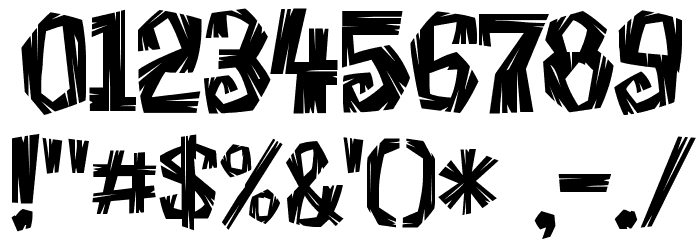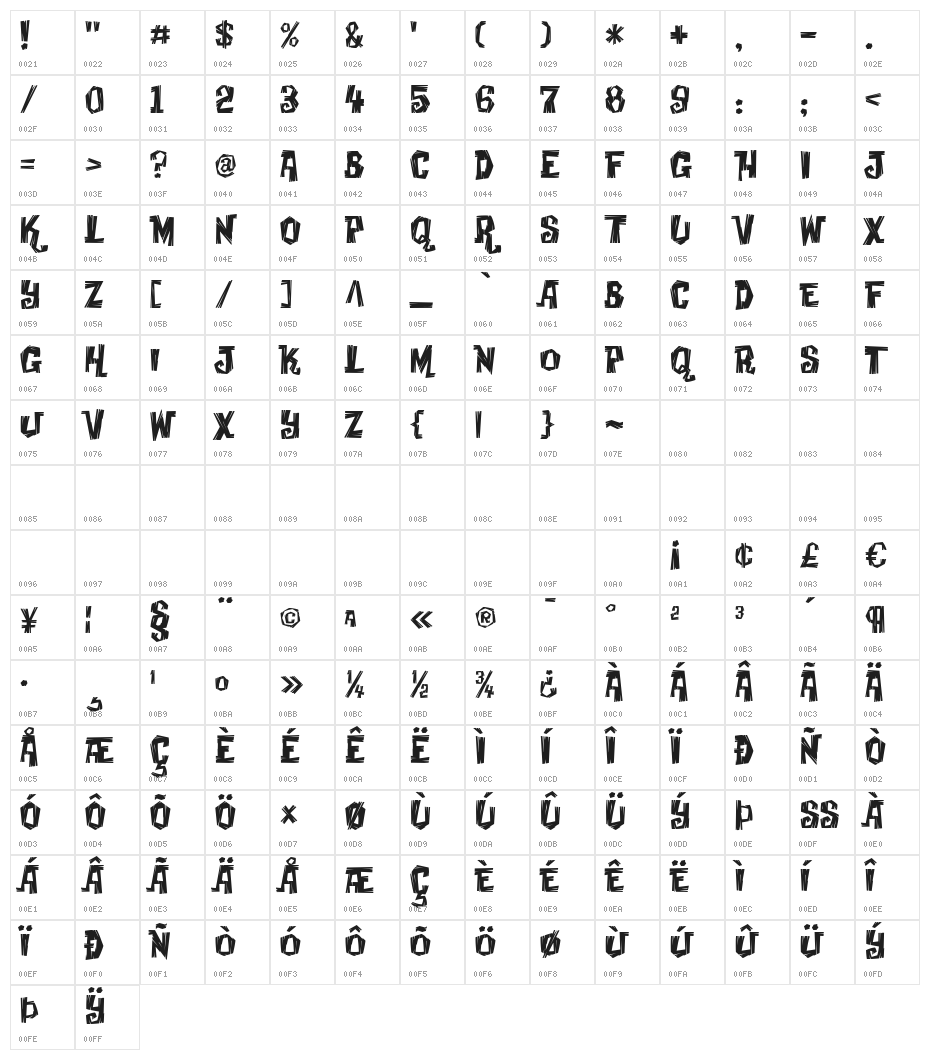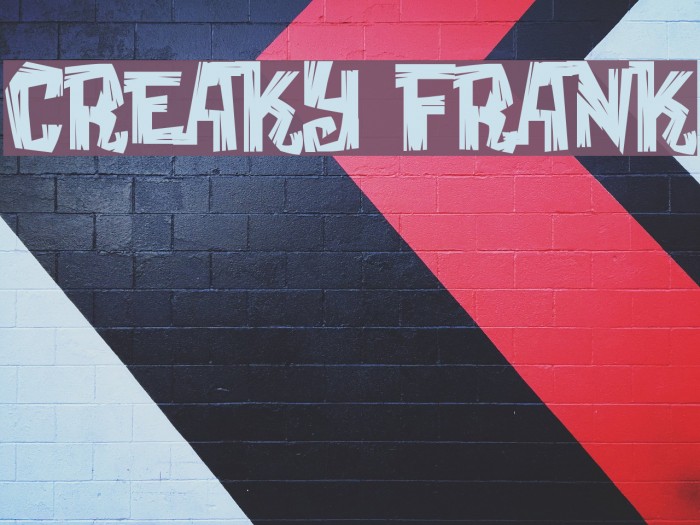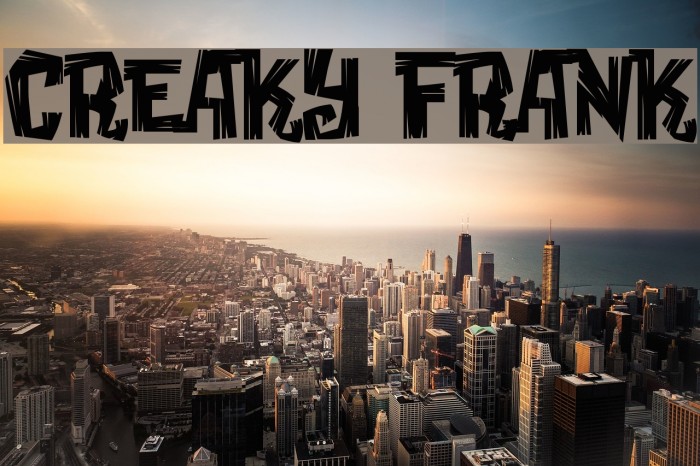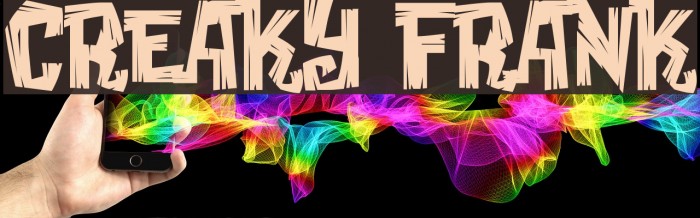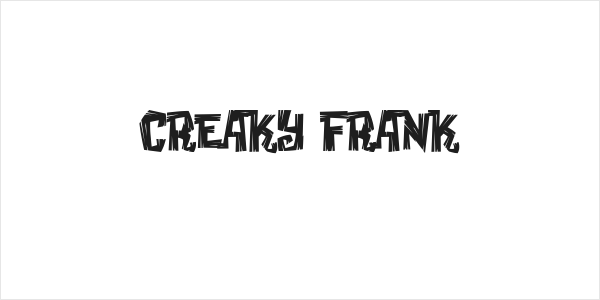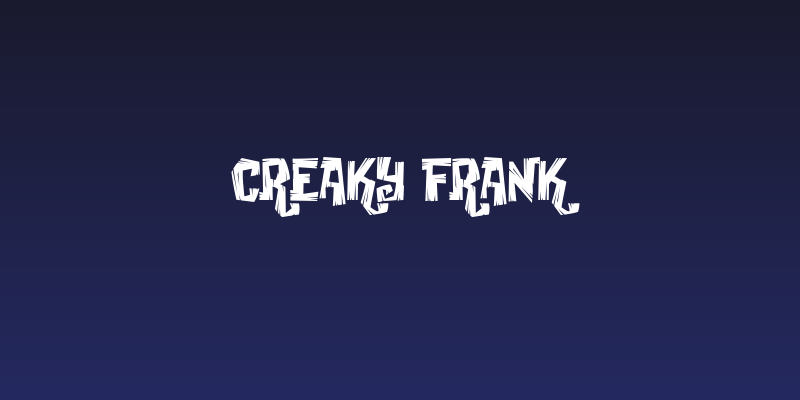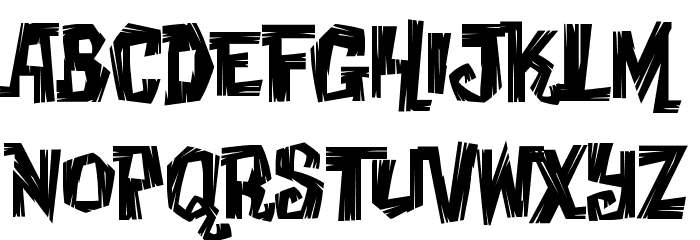
Creaky Frank Font
Creaky Frank Description
This font features a bold and edgy design with a jagged, distressed appearance. The characters are constructed with sharp angles and irregular lines, giving it a chaotic yet artistic feel. The uppercase and lowercase letters maintain a consistent style, with each character exhibiting a unique, hand-drawn quality. The numbers and special characters follow the same rugged aesthetic, making the font suitable for projects that require a strong visual impact. Its distinctive style is reminiscent of graffiti or street art, adding a rebellious and unconventional touch to any design.
| Overall Style | Modern, Edgy |
| Proposed Projects | Ideal for posters, album covers, streetwear branding, and edgy graphic designs. |